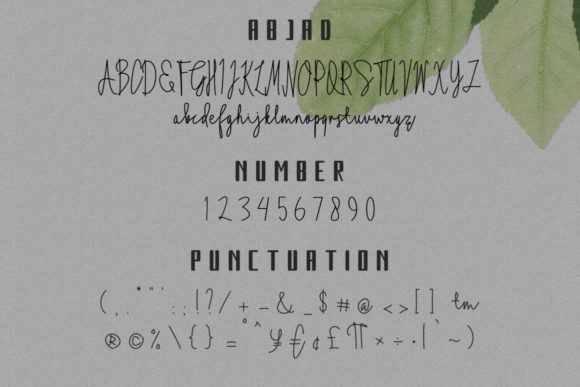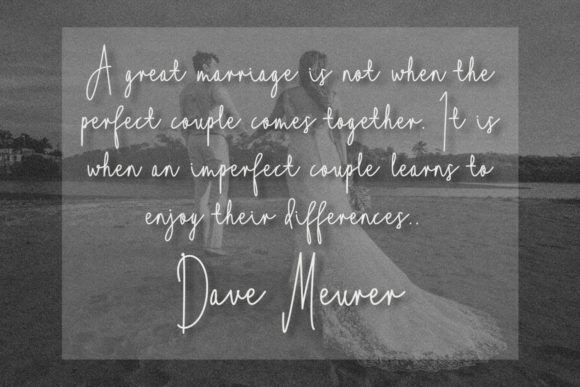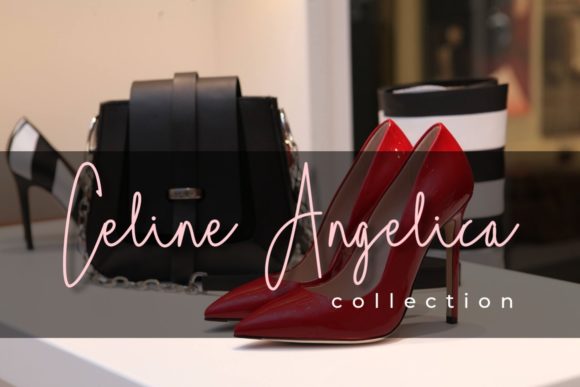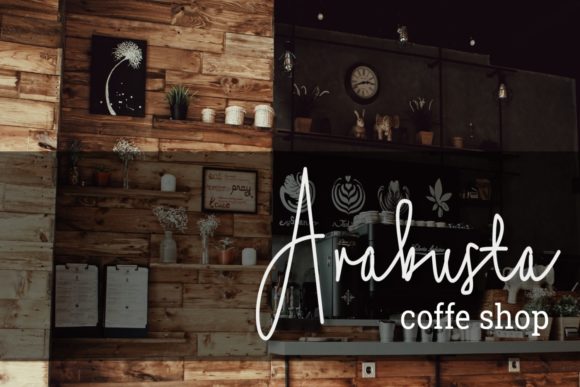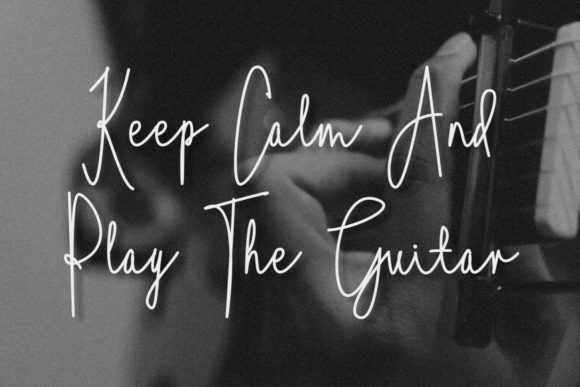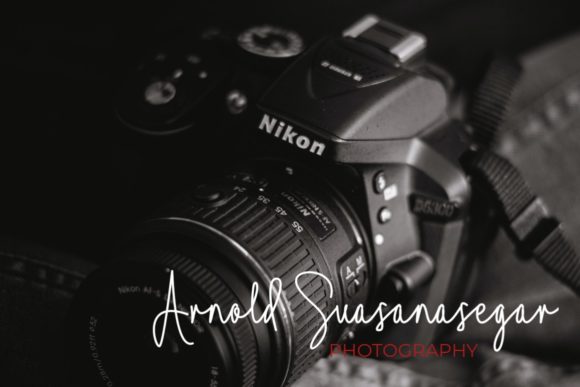
Introduction to Meilankolis Font
Have you ever stumbled upon the perfect font while working on a creative project, and it instantly elevates your design to the next level? That’s exactly what happened to many designers when they discovered the stunning Meilankolis Font. This beautiful, cursive script font is perfect for adding a touch of elegance to various designs, from wedding invitations to logos.
Whether you’re a seasoned designer or just starting out, the Meilankolis Font is a valuable addition to your design resource toolkit. Its high quality and versatility make it an ideal choice for a wide range of creative projects. Plus, with a transparent background, you can easily customize it to fit your design needs. And the best part? It’s available for free download, making it an accessible resource for designers of all levels.
Key Features of Meilankolis Font
- Unique, elegant design suitable for various creative projects, including logos, branding materials, and digital artwork.
- Includes a wide range of glyphs and characters, making it suitable for use in various languages and scripts.
- Meilankolis Font is a free, high-quality design resource that can elevate any creative project with its unique and elegant style.
Honest Review: Meilankolis Font
As a designer, I’m always on the lookout for high-quality design resources to enhance my creative projects. The Meilankolis Font caught my attention with its elegant and sophisticated style, making it a perfect addition to any design project.
- ✨ High-quality design that looks great on any platform
- ✨ Includes a transparent background, making it easy to use in any design scenario
- ✨ A great addition to any design project, especially those requiring an elegant and sophisticated feel
- ⚠️ Limited character set, which may not be suitable for extended texts
- ⚠️ Not suitable for use in small font sizes, as the details may get lost
Overall, the Meilankolis Font is a great design resource that can add a touch of elegance to any creative project. Although it has some limitations, it’s a high-quality font that’s definitely worth considering for your next design project. Plus, it’s available for free download, making it a great value for designers on a budget.
For optimal results, use the Meilankolis Font in combination with a high-contrast background. This font is particularly useful for creating eye-catching titles, headings, and logos.
Some common use cases include:
- Infographics and data visualizations
- Advertising and promotional materials